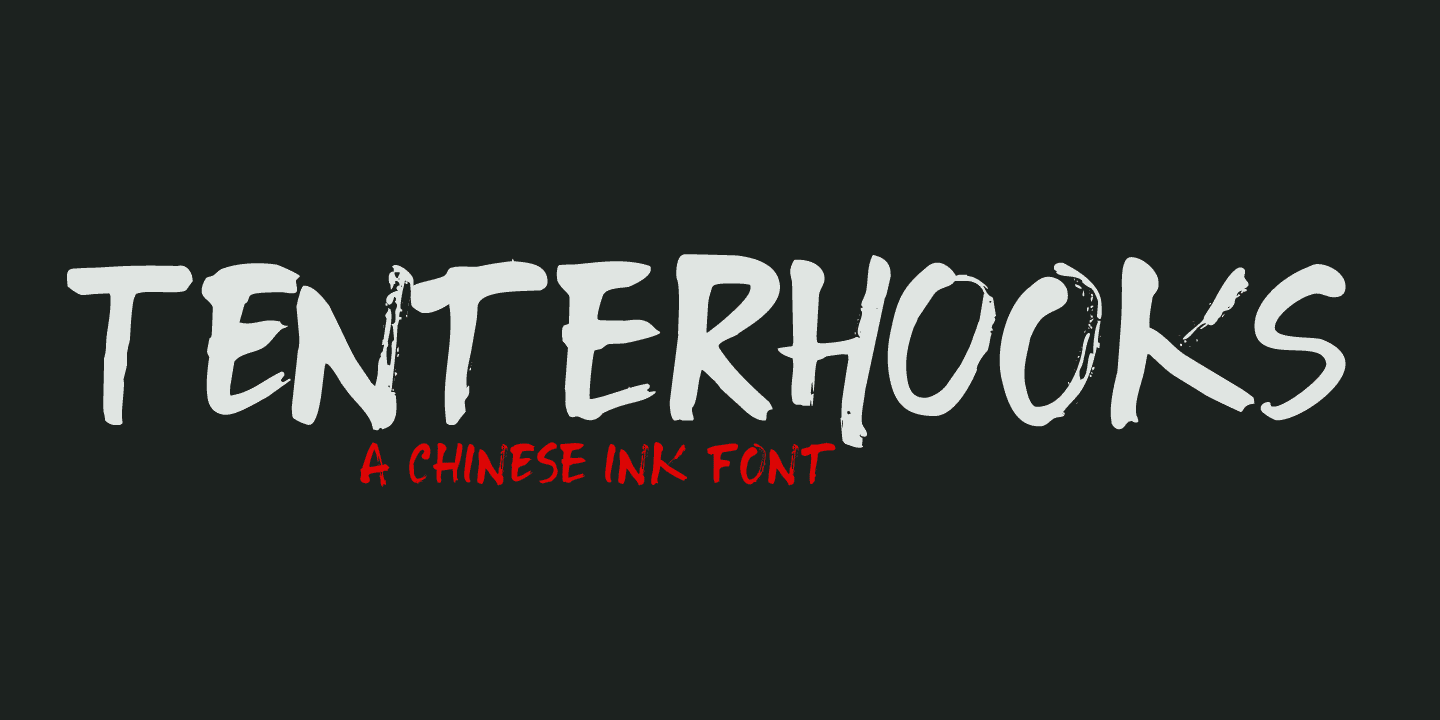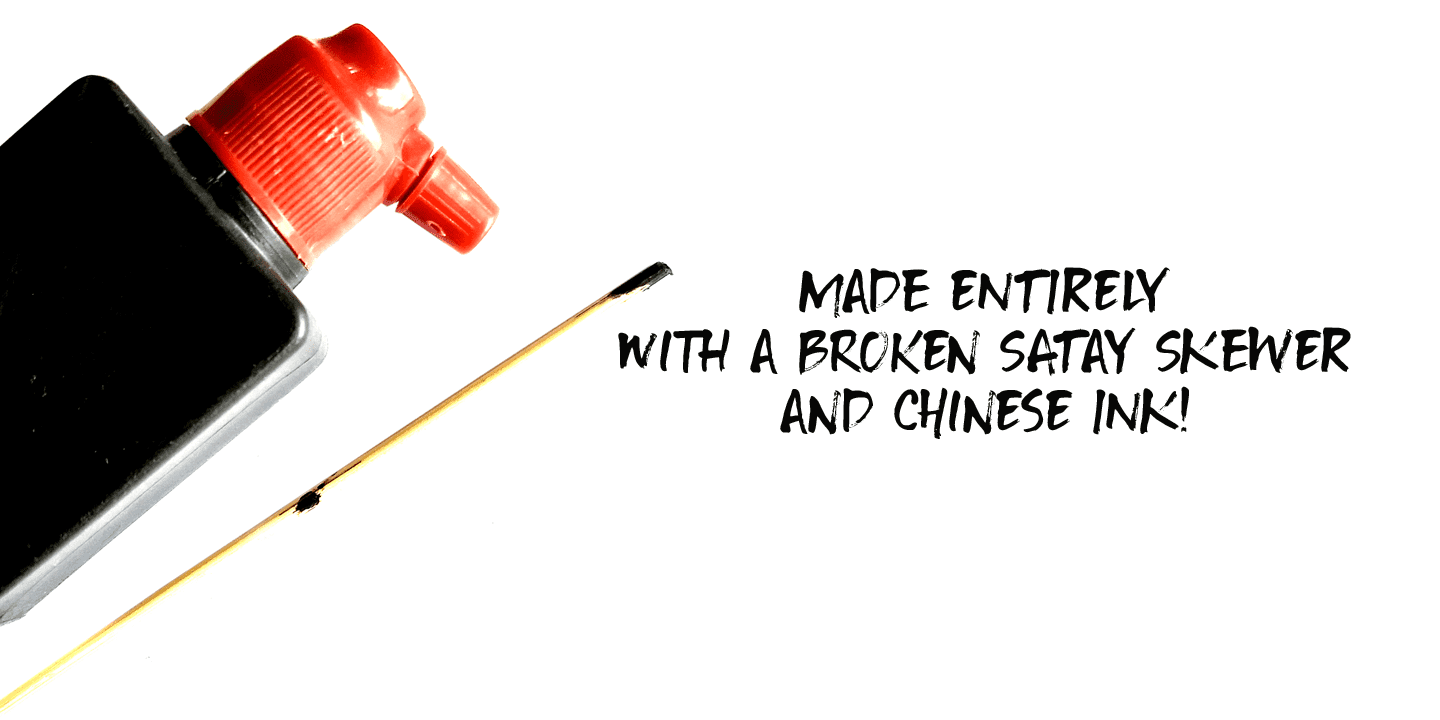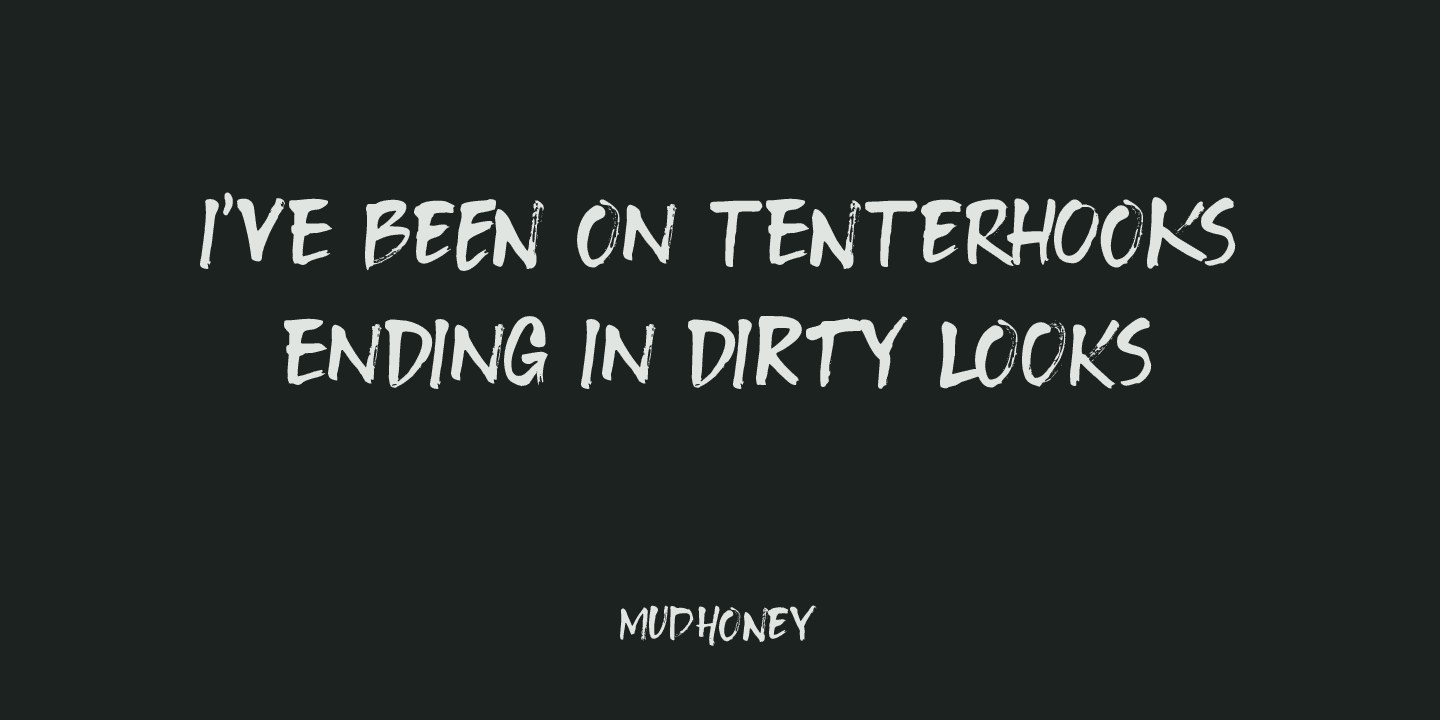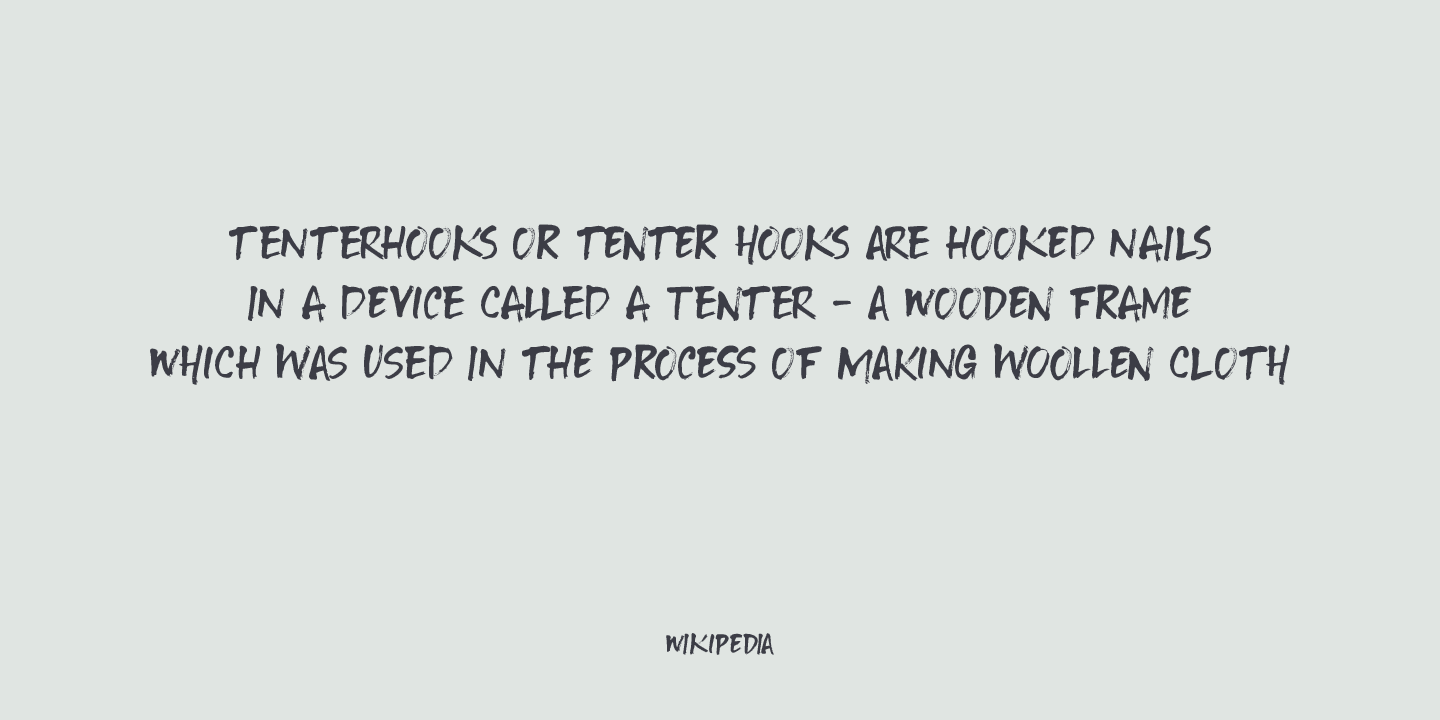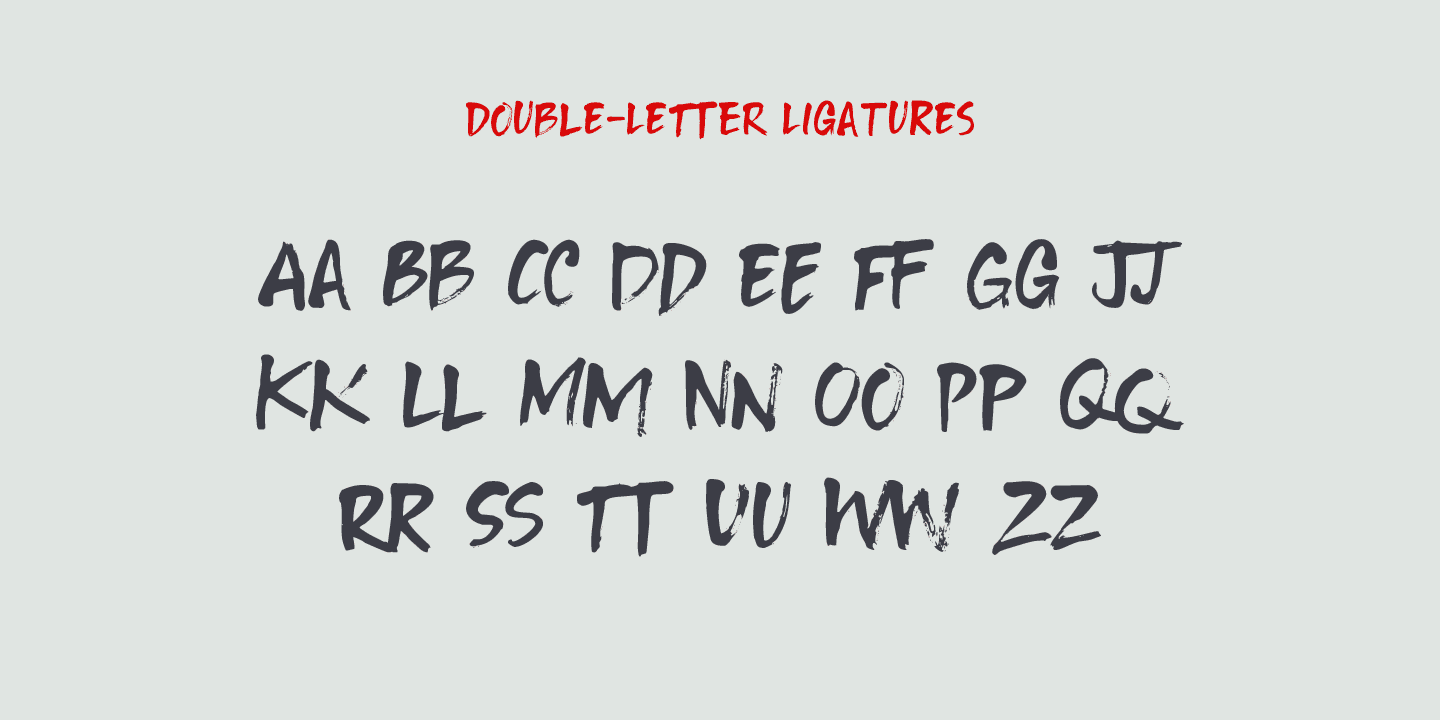
I like the expression ‘being on tenterhooks’. Not that I’m on tenterhooks very often!
Tenterhooks was made with a broken satay skewer (see poster 2 for the actual thing) and Chinese ink. It came out rather rough, but it does have a nice flow and a certain ‘wild elegance’.
Comes with double letter ligatures and a whole bunch of diacritics.